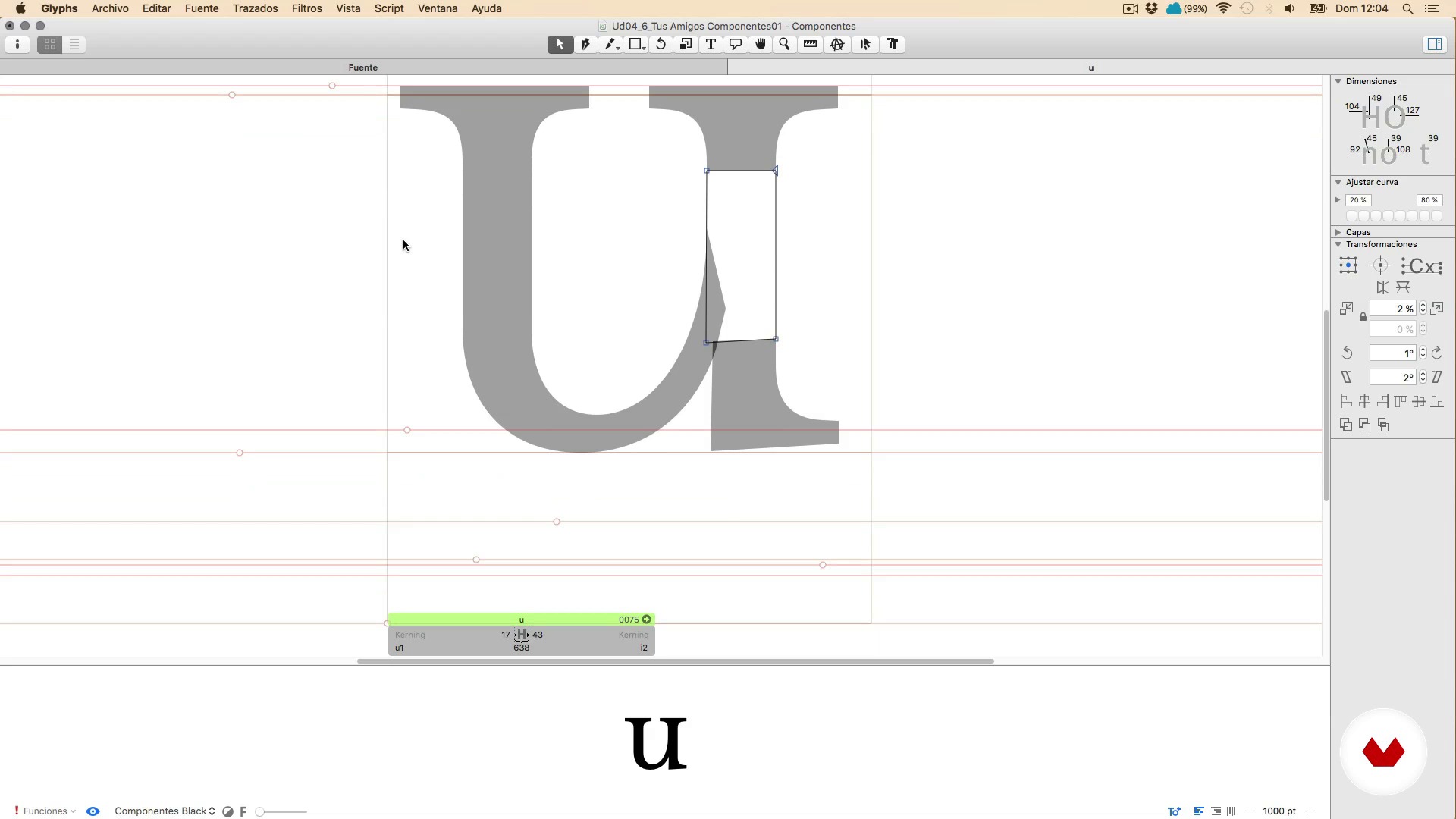
To the mess, drawing and testing letters 2
About the video: To the mess, drawing and testing letters 2
“Let's go with the second part”
In this video lesson Juanjo López addresses the topic: To the mess, drawing and testing letters 2, which is part of the Domestika online course: Design a Digital Font from A to Z. Learn to design a font from scratch with Glyphs, Illustrator, and OpenType functions.
“Now. i'm about to sketch some letters that are derived from others. Earlier. in the lesson on components. we easily crafted three letters by starting with two others. Let's explore if I can extend this approach and create more letters from there. building upon the previous examples and techniques. in the simplest way possible. For instance. with the N. the only two related letters or the two most related letters I possess would be the R and the U. These letters are closely linked and can be derived from each first. i take the R and bring an N directly instead of grabbing I deconstruct the N...”